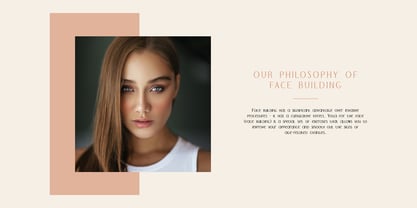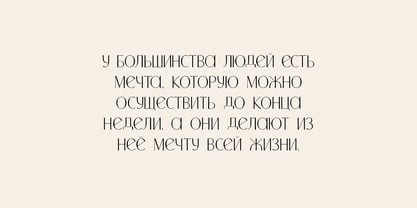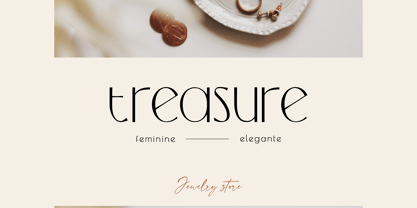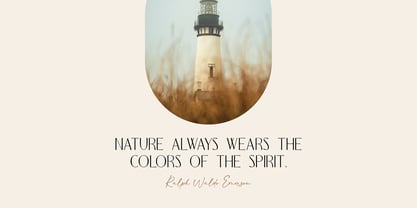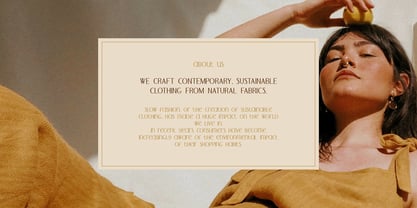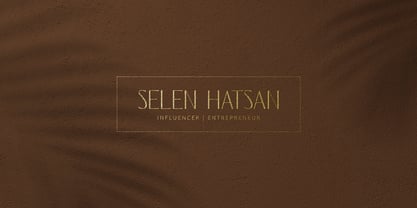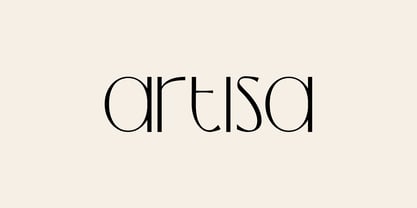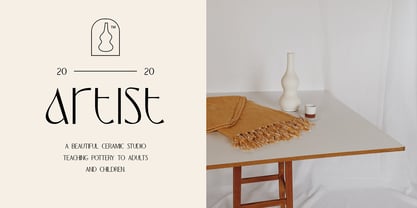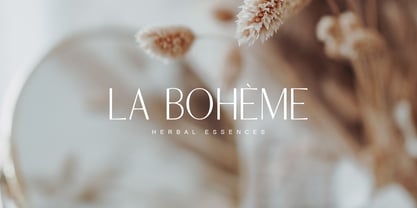
Artisa
by Elvina Studio
The Artisa Font Family was designed by Elvina Gafarova and published by Elvina Studio. Artisa contains 2 styles and family package options.
Artisa is an elegant, minimal typeface with a luxurious vibe. This neat font can contribute to the modern and fashionable appeal of the brand. Uppercase and lowercase letters are the same height.
• Upper/lowercase, numbers, punctuations.
• Multilingual support.